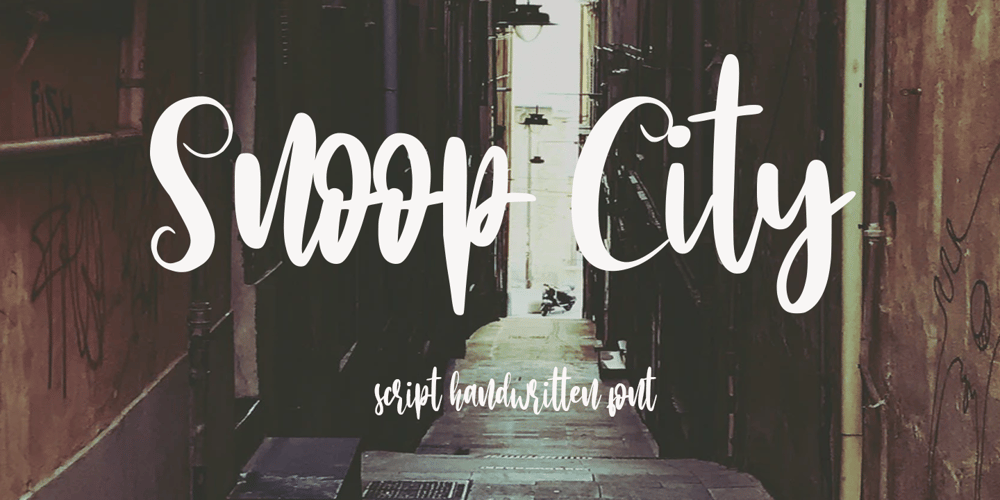
Snoop City
Snoop City font
Snoop City Font Family was designed by Arief Tri Sulistiyono and published by Supersemarletter. Snoop City contains 1 styles and family package options. Snoop City is a flowing handwritten font, described by an elegant touch, perfect for your favorite projects. Fall in love with its incredibly distinct and timeless style and use it to create spectacular designs!. Honestly it works perfectly for headlines, logos, posters, packaging, T-shirts and much more.Font Features :• Regular version• Character set A-Z in uppercase and lowercase• Numerals & Punctuation• Accented Characters• Multiple Languages SupportedRecommended to use in Adobe Illustrator or Adobe Photoshop with opentype feature.If you have questions, just send me a message and I’m glad to help.